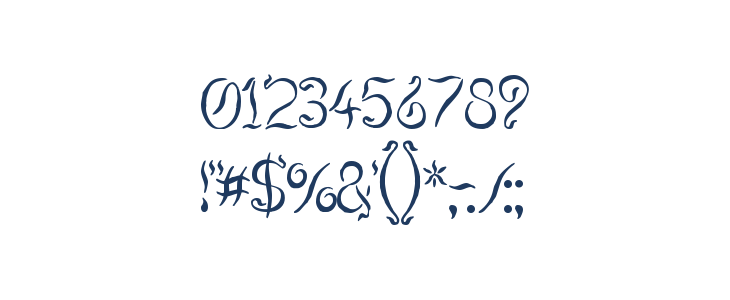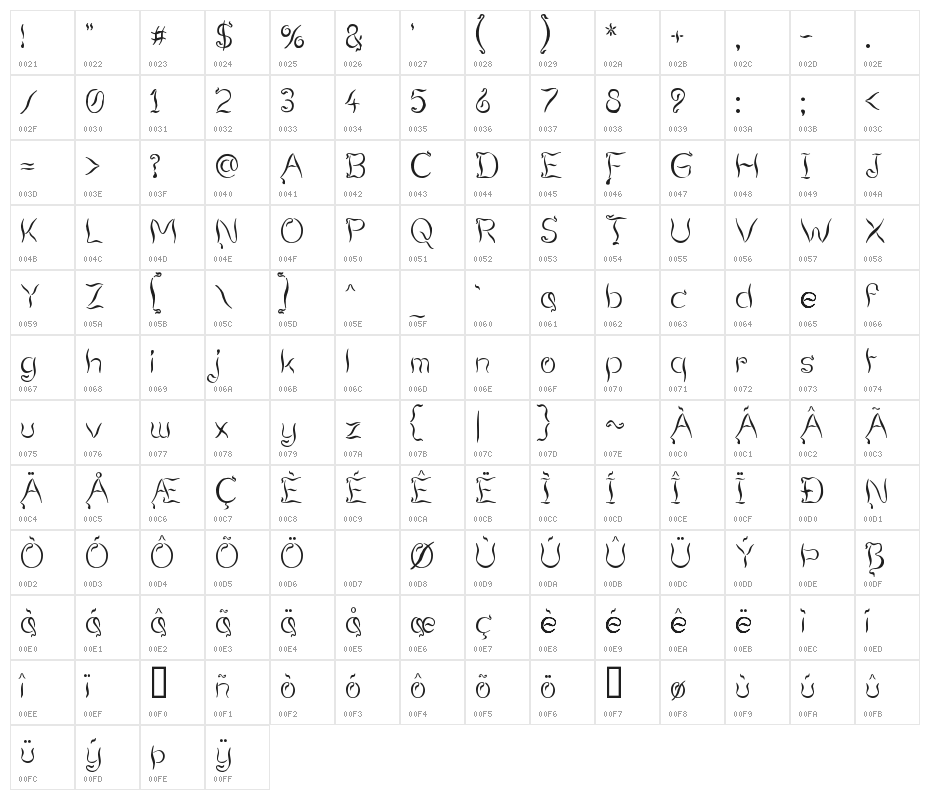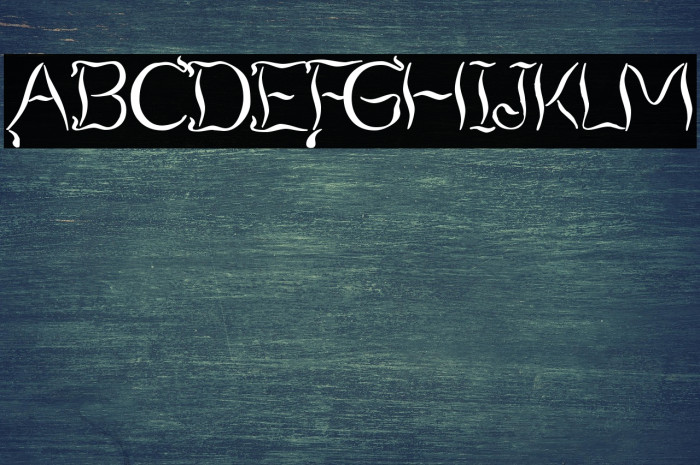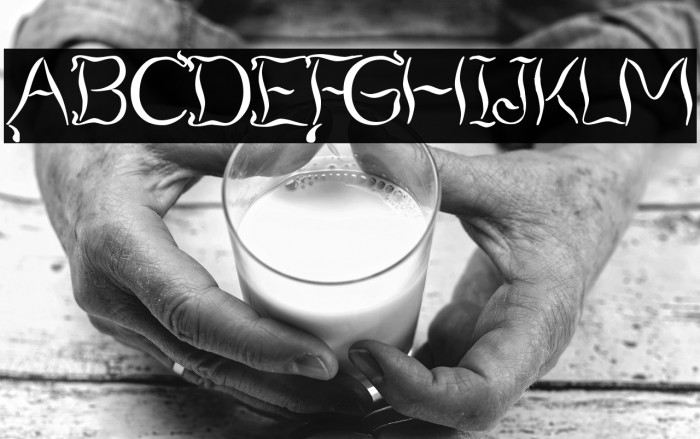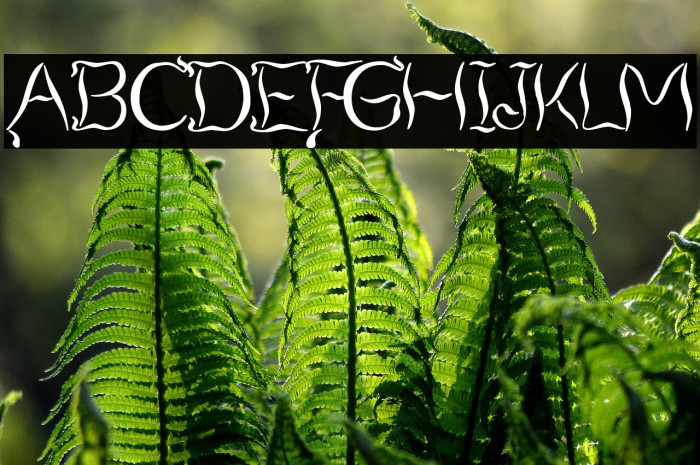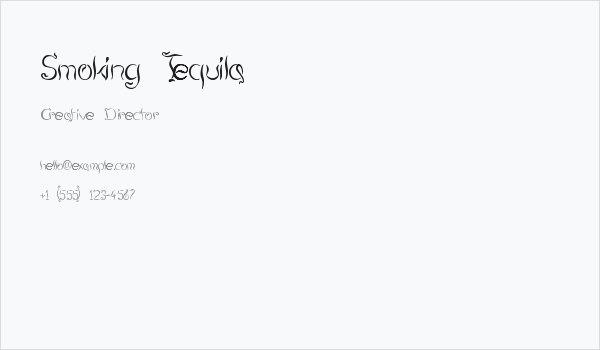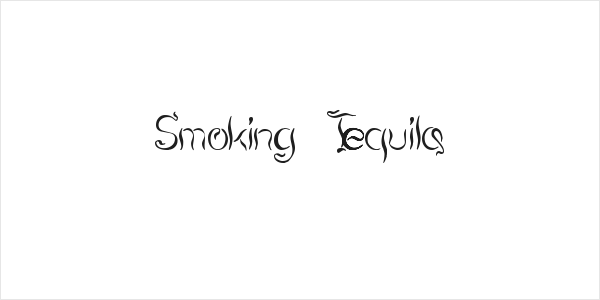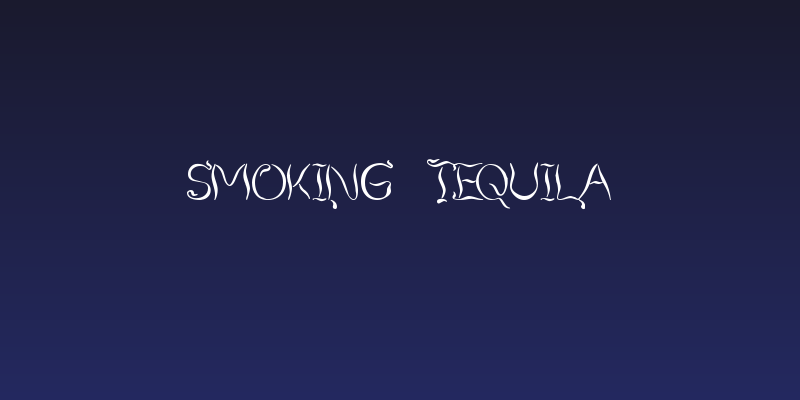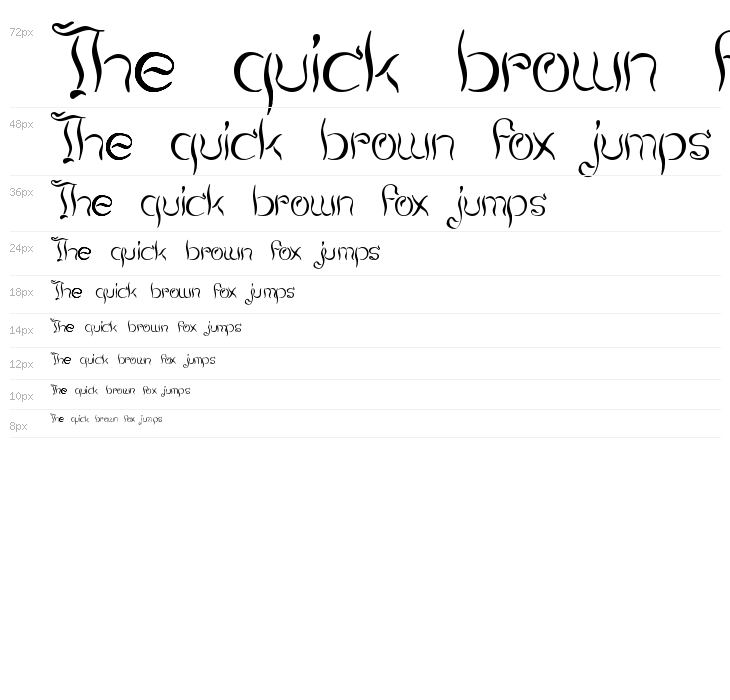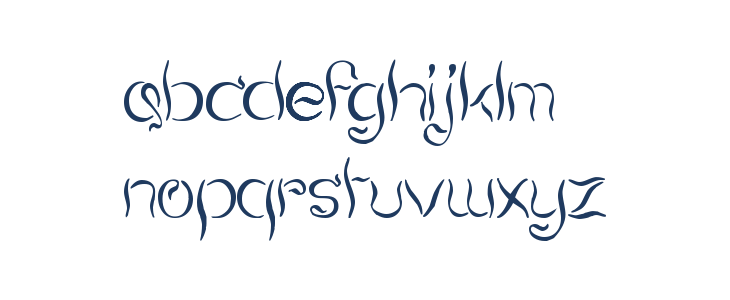
Smoking Tequila Font
Smoking Tequila Description
This font features a unique and artistic design with a flowing, organic style. The characters have a hand-drawn appearance, with each letter exhibiting a distinct, wavy form that adds a sense of movement and dynamism. The strokes vary in thickness, creating a medium contrast that enhances the visual interest of the font. The overall style is decorative, making it suitable for creative and expressive projects. The font's playful and whimsical nature makes it ideal for designs that require a touch of personality and flair.
| Use Case | Headlines, Logos, Artistic displays |
| Proposed Projects | Ideal for creative projects such as posters, invitations, branding, and artistic displays. |